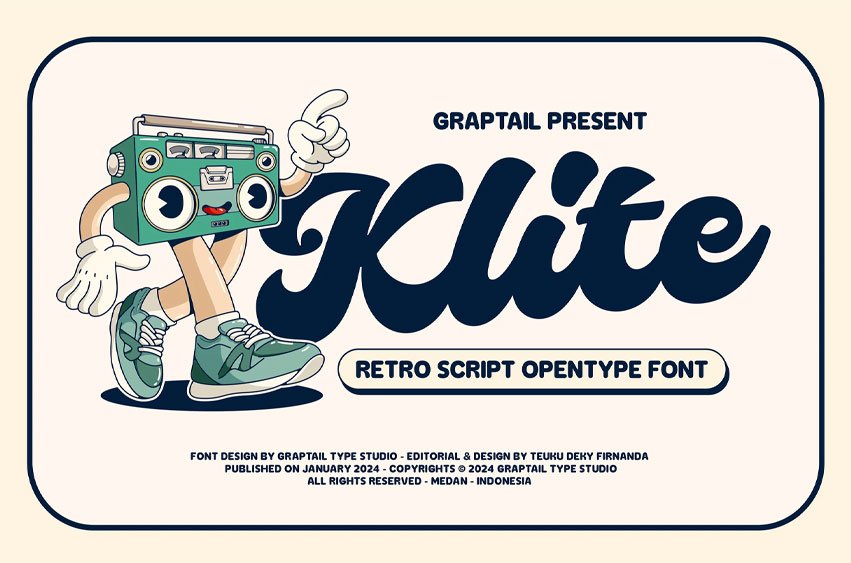
Klite Font Retro Script is a stylish font with a modern and retro look.
It comes with alternatives and ligatures and helps create stunning logos, quotes, blog posts, branding projects, magazine imagery, wedding invitations, and much more.